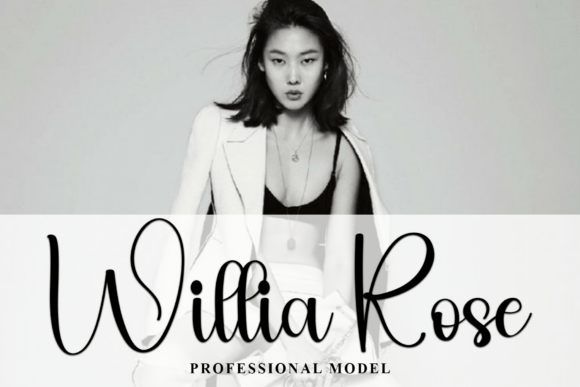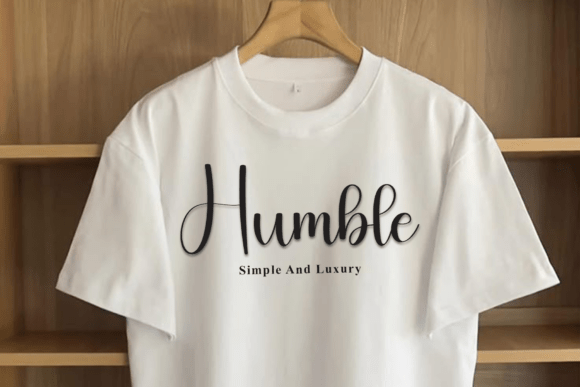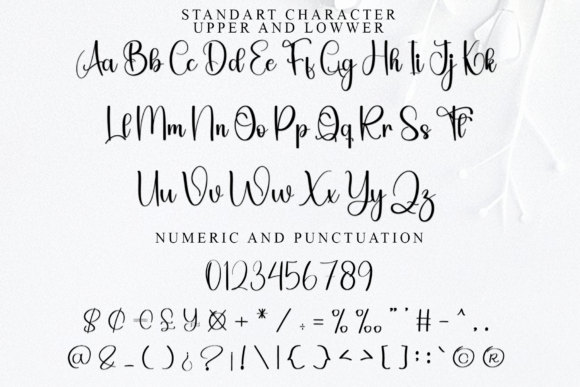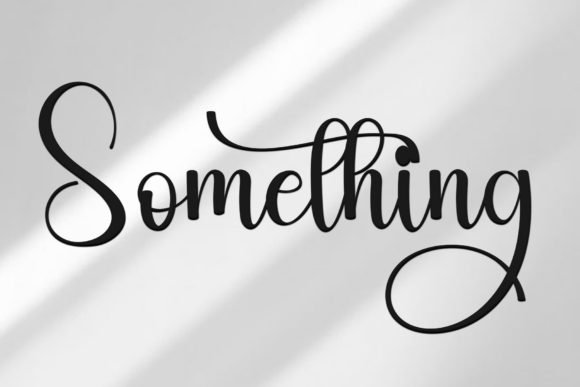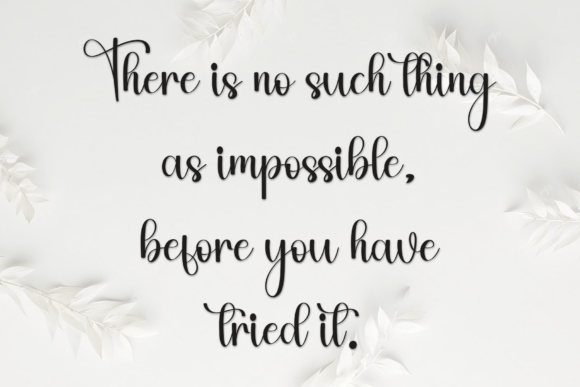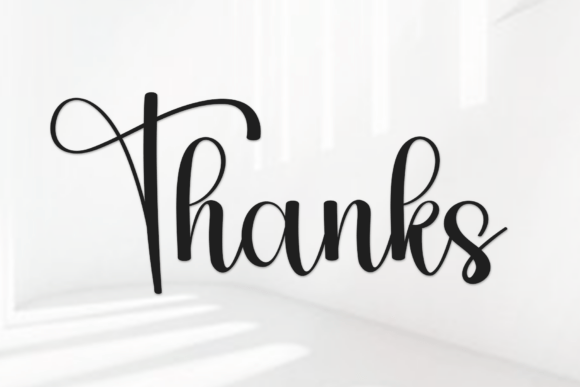
Introducing Haunting Font: A Festive and Merry Typeface for the Holiday Season
As the holiday season approaches, designers and crafters are on the lookout for typography that captures the magic and wonder of this special time of year. Look no further than Haunting Font, a festive and merry typeface that embodies the spirit of the holiday season. With its decorative elements and whimsical flair, Haunting Font adds a touch of enchantment to your designs, making it perfect for greeting cards, gift tags, and holiday-themed projects.
A Font that Embodies the Holiday Spirit
Haunting Font is designed to evoke the nostalgia and cheer of the holiday season. Its unique blend of decorative elements and playful typography brings a sense of wonder and enchantment to your words. Whether you’re creating greeting cards, gift tags, or holiday-themed projects, Haunting Font is the perfect choice to add a touch of festive flair to your designs.
Key Features of Haunting Font
- Decorative Elements: Haunting Font features intricate decorative elements that add a touch of elegance and sophistication to your designs.
- Whimsical Flair: The font’s playful typography brings a sense of whimsy and fun to your designs, making it perfect for holiday-themed projects.
- Perfect for Holiday Projects: Haunting Font is specifically designed for holiday-themed projects, making it the perfect choice for greeting cards, gift tags, and more.
Why Choose Haunting Font?
Haunting Font is the perfect choice for designers and crafters looking to add a touch of festive flair to their holiday-themed projects. Here are just a few reasons why:
- Unique and Eye-Catching: Haunting Font is a one-of-a-kind typeface that will make your designs stand out from the crowd.
- Versatile: Haunting Font can be used for a variety of holiday-themed projects, from greeting cards to gift tags and more.
Tips for Using Haunting Font
Here are a few tips for using Haunting Font in your holiday-themed projects:
- Pair with Other Festive Fonts: Pair Haunting Font with other festive fonts to create a unique and eye-catching design.
- Use for Headings and Titles: Use Haunting Font for headings and titles to add a touch of festive flair to your design.
Haunting Font is a festive and merry typeface that captures the spirit of the holiday season. With its decorative elements and whimsical flair, it adds a touch of enchantment to your designs. Perfect for greeting cards, gift tags, and holiday-themed projects, Haunting Font brings a cheerful and nostalgic ambiance to your words. Let your typography shine with the magic of Haunting Font!